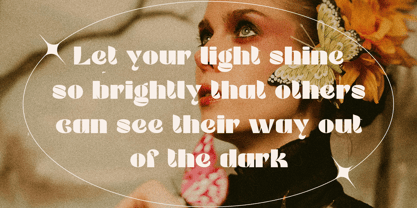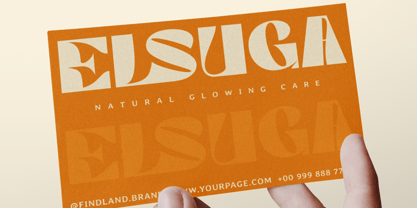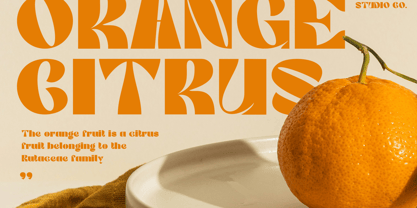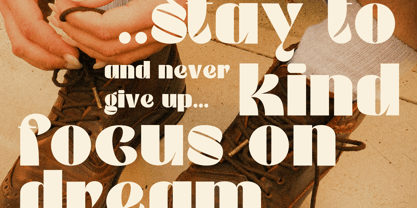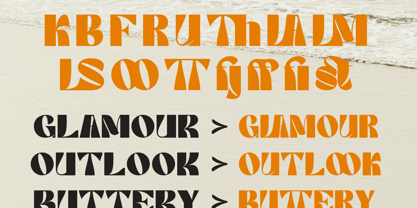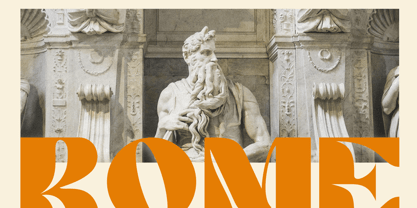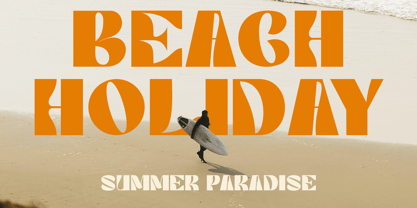
La familia tipográfica Glare fue diseñada por Sigit Ananta y publicada por Annivers Type Studio. Glare contiene 1 estilos. Más información sobre esta familia
Glare brings vibrant retro flair with a modern edge to your designs. Crafted with meticulous detail and bold characters, this retro display font is ideal for projects that call for a nostalgic yet daring touch. Perfect for logos, holiday cards, wedding invitations, quotes, advertisements, and more.